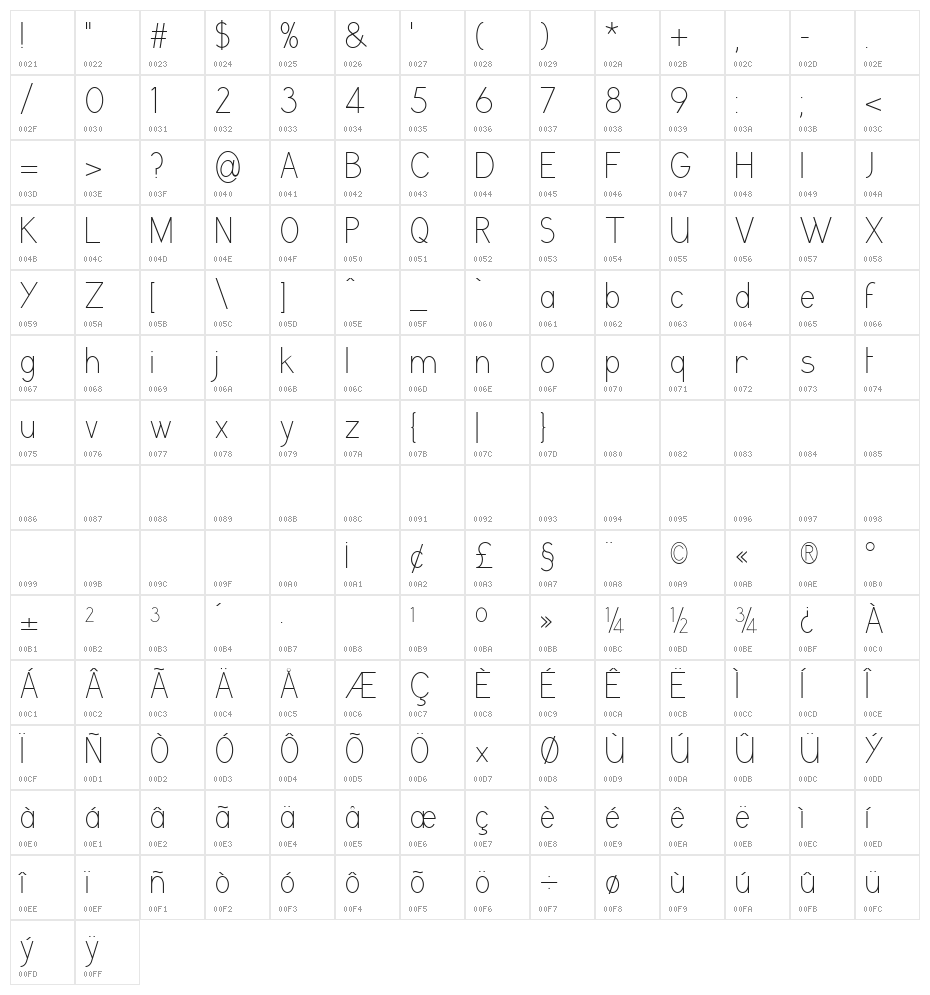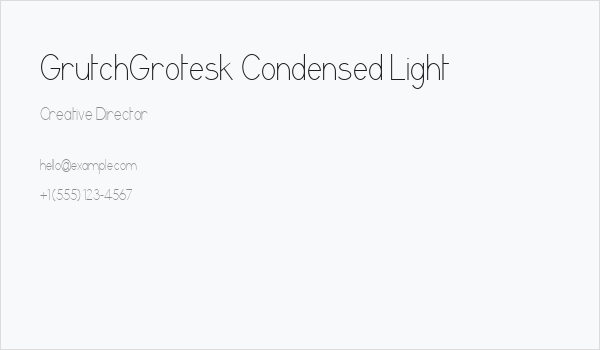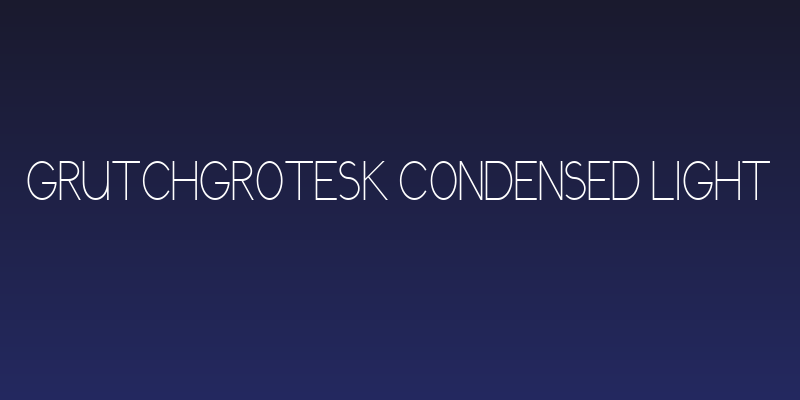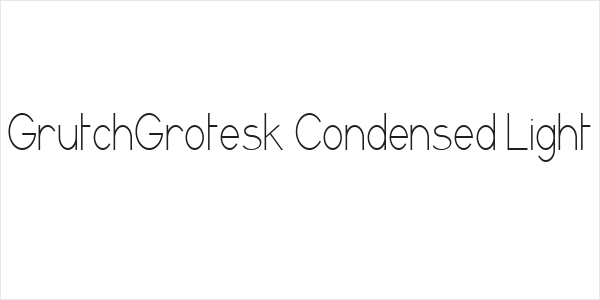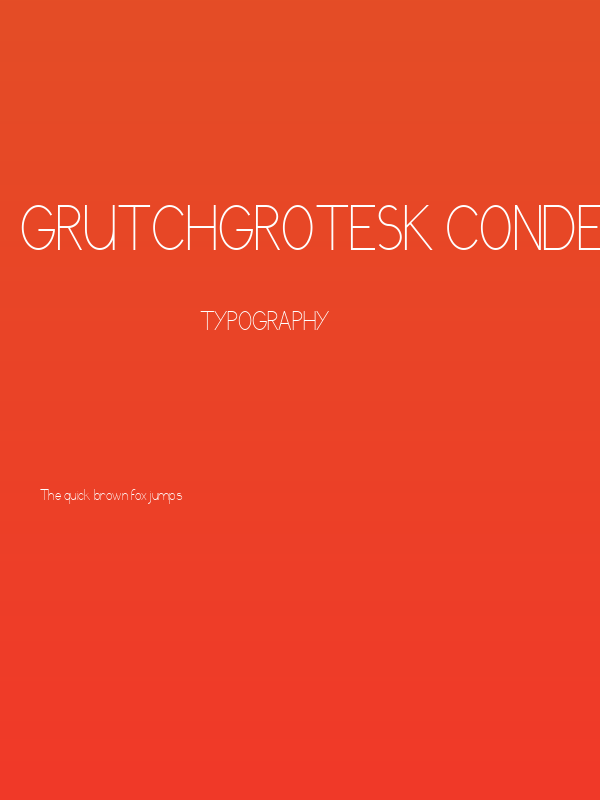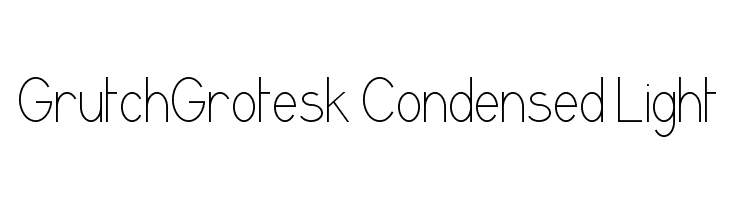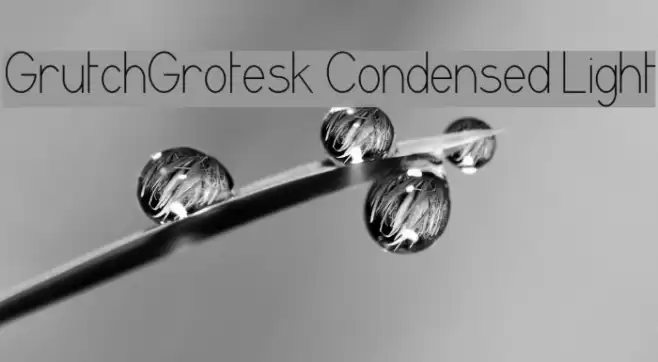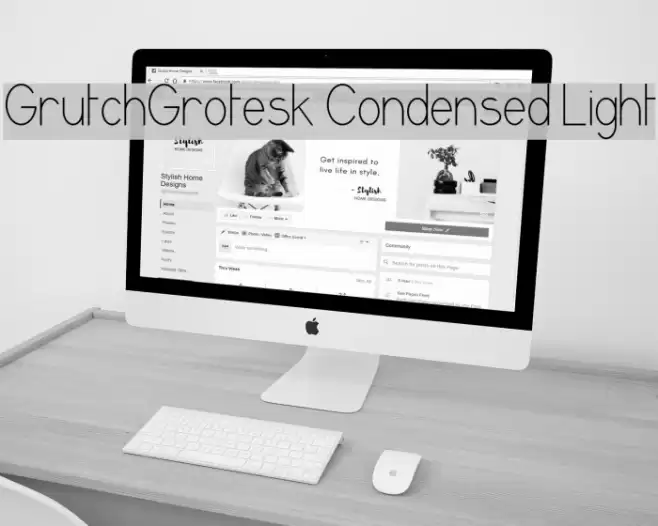
GrutchGrotesk Condensed Light Font
GrutchGrotesk Condensed Light Description
This font features a clean and minimalist design with a condensed structure, making it ideal for modern and sleek applications. The characters are uniformly thin, contributing to a light and airy appearance. The uppercase and lowercase letters maintain a consistent height, while the numerals and special characters are designed to complement the overall aesthetic. The font's geometric shapes and precise lines give it a contemporary feel, suitable for projects that require a sophisticated yet understated look.
| Proposed Projects | Ideal for branding, editorial design, and digital interfaces where a modern and sleek appearance is desired. |